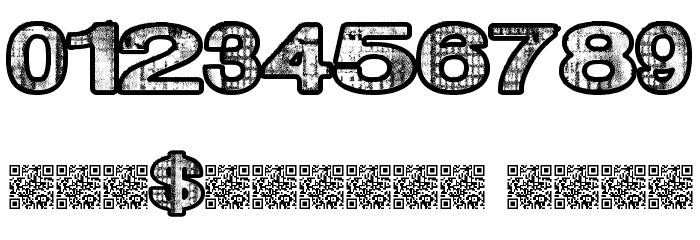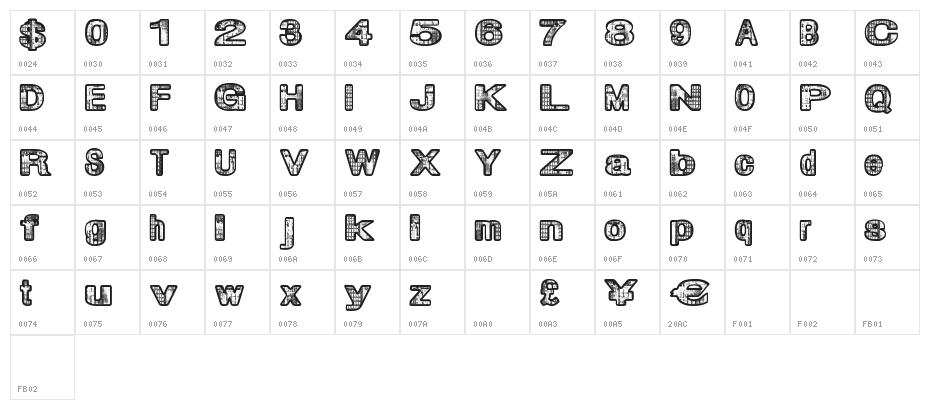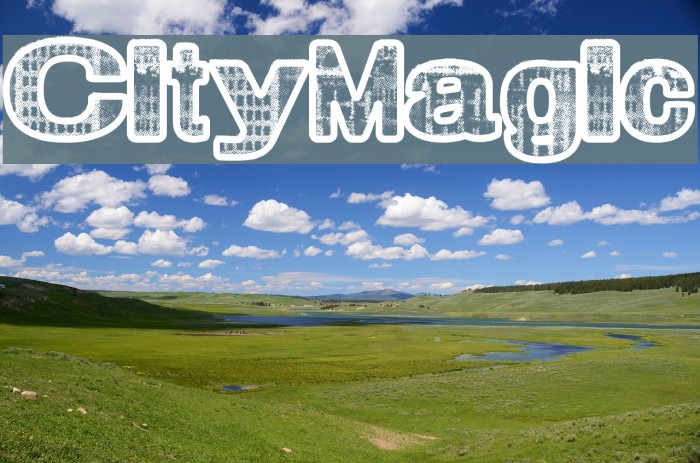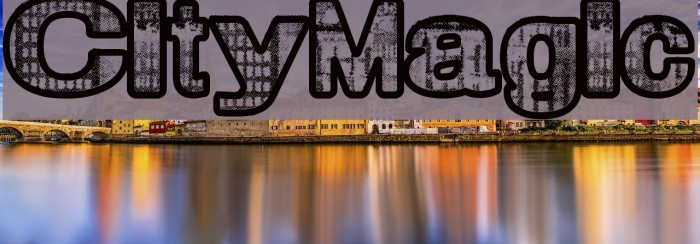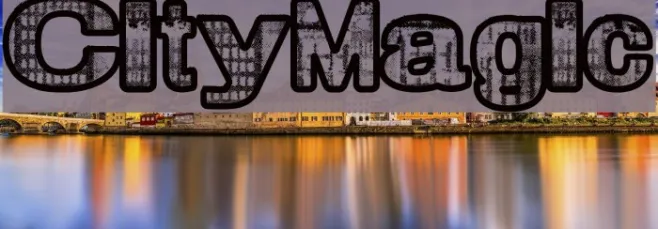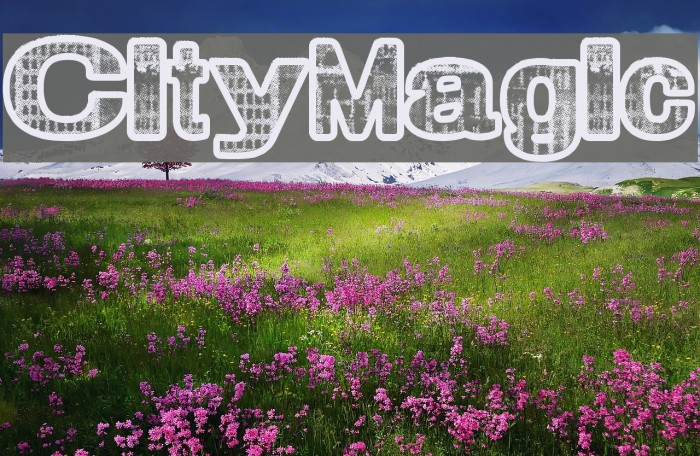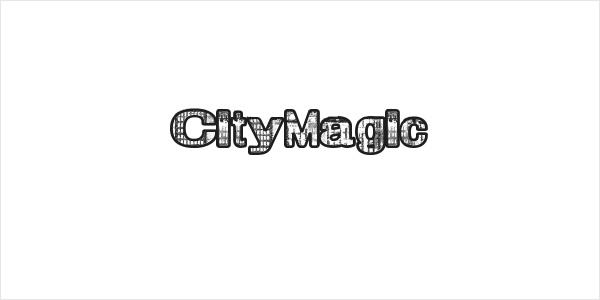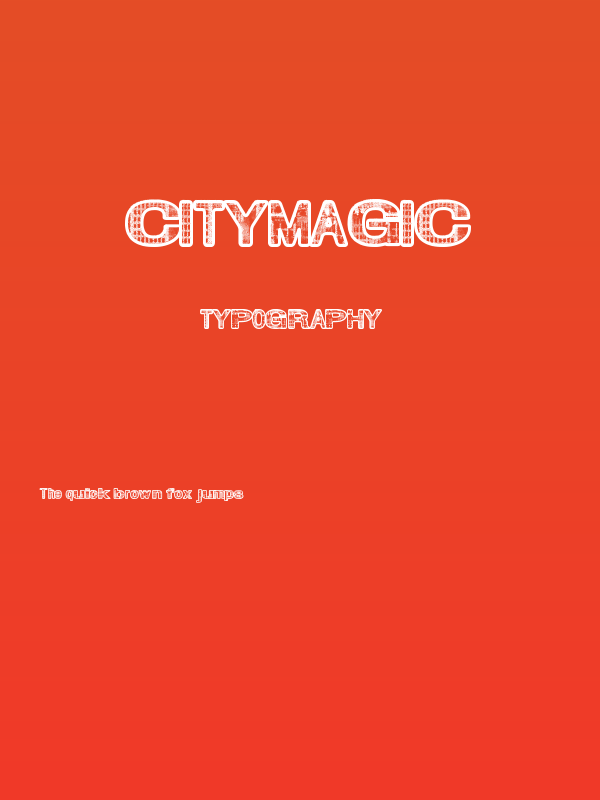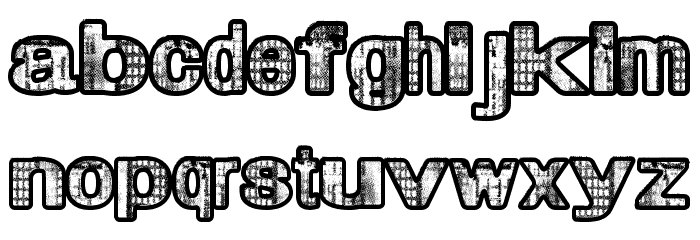
CityMagic Font
CityMagic Description
This font features a bold, decorative style with a unique textured pattern that resembles a cityscape or urban grid. The characters are outlined with a thick black border, enhancing their visibility and impact. Each letter and number is filled with a detailed, intricate design that adds depth and complexity. The overall appearance is modern and eye-catching, making it suitable for projects that require a strong visual statement. The font maintains consistent proportions across uppercase, lowercase, and numeric characters, ensuring readability despite its decorative nature.
| Proposed Projects | Ideal for posters, event flyers, urban-themed designs, and branding projects that require a bold statement. |